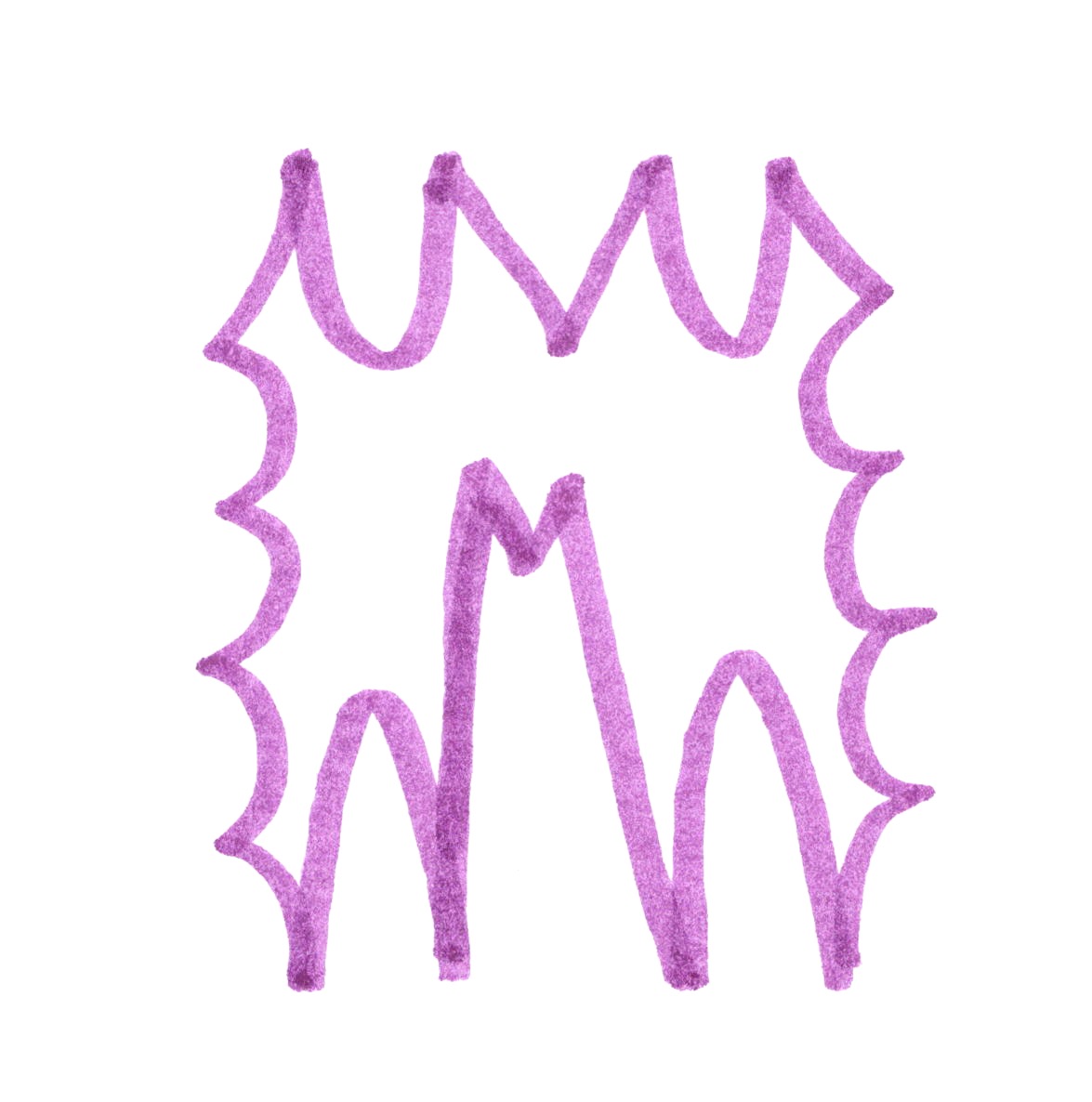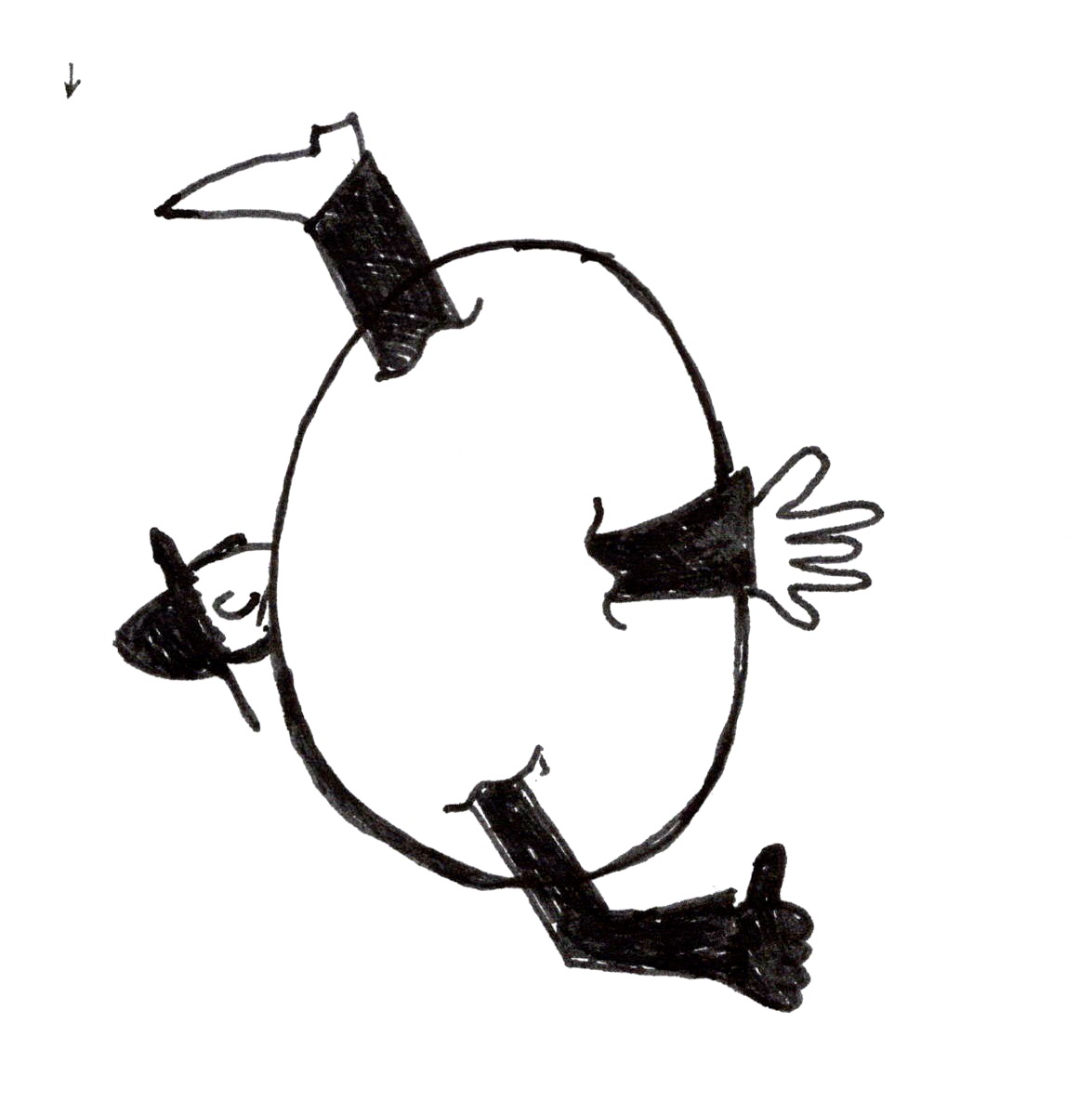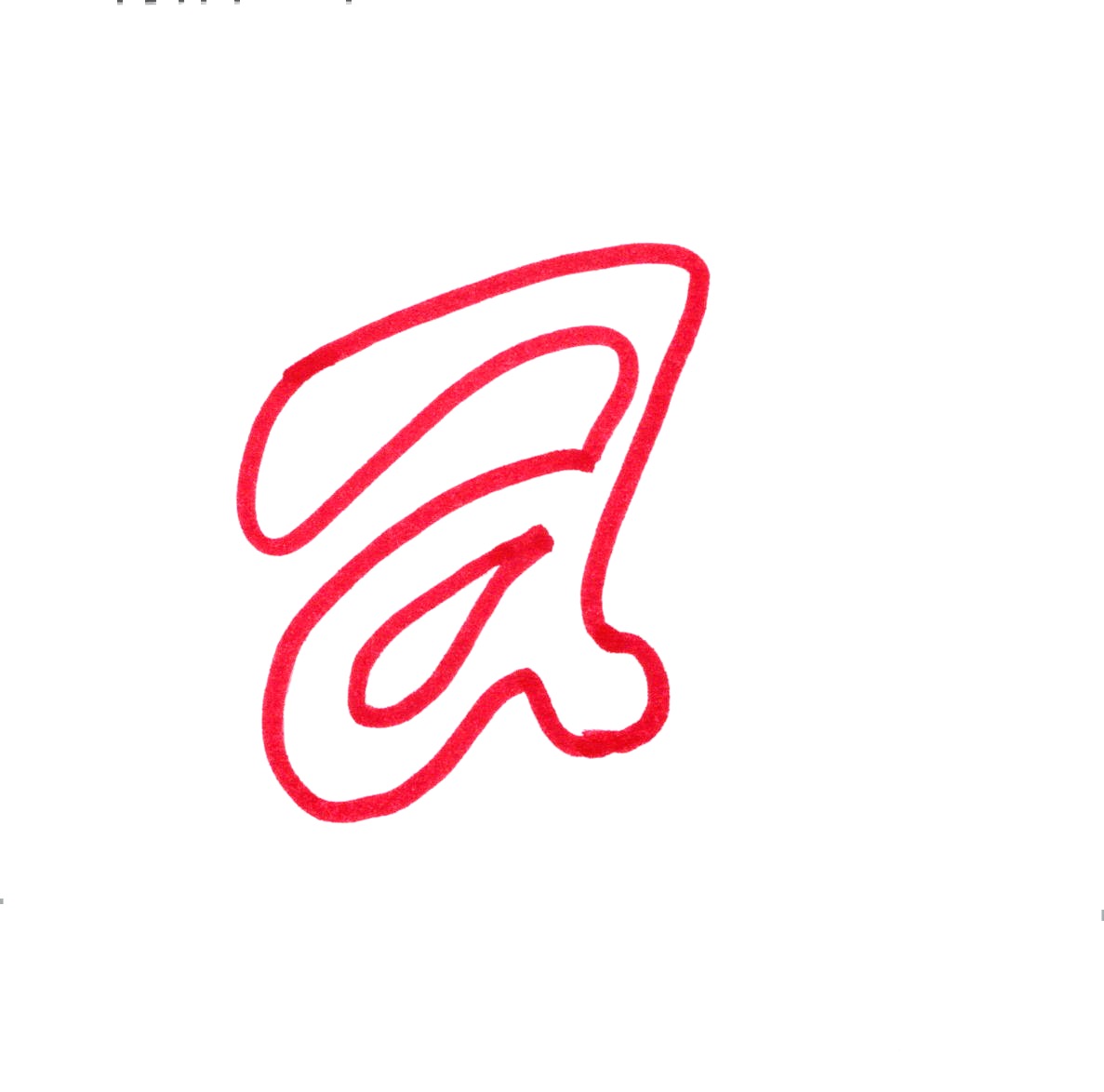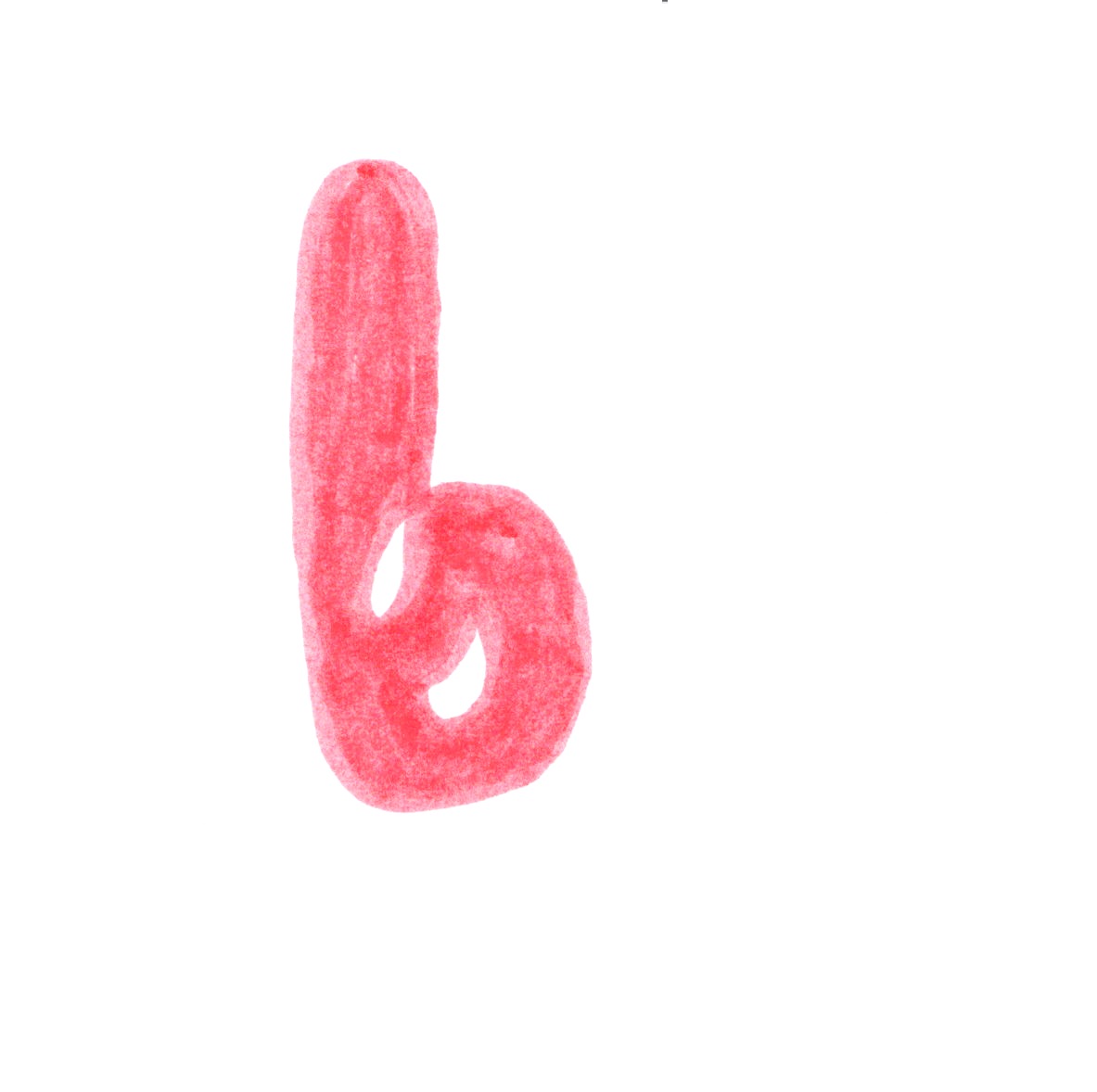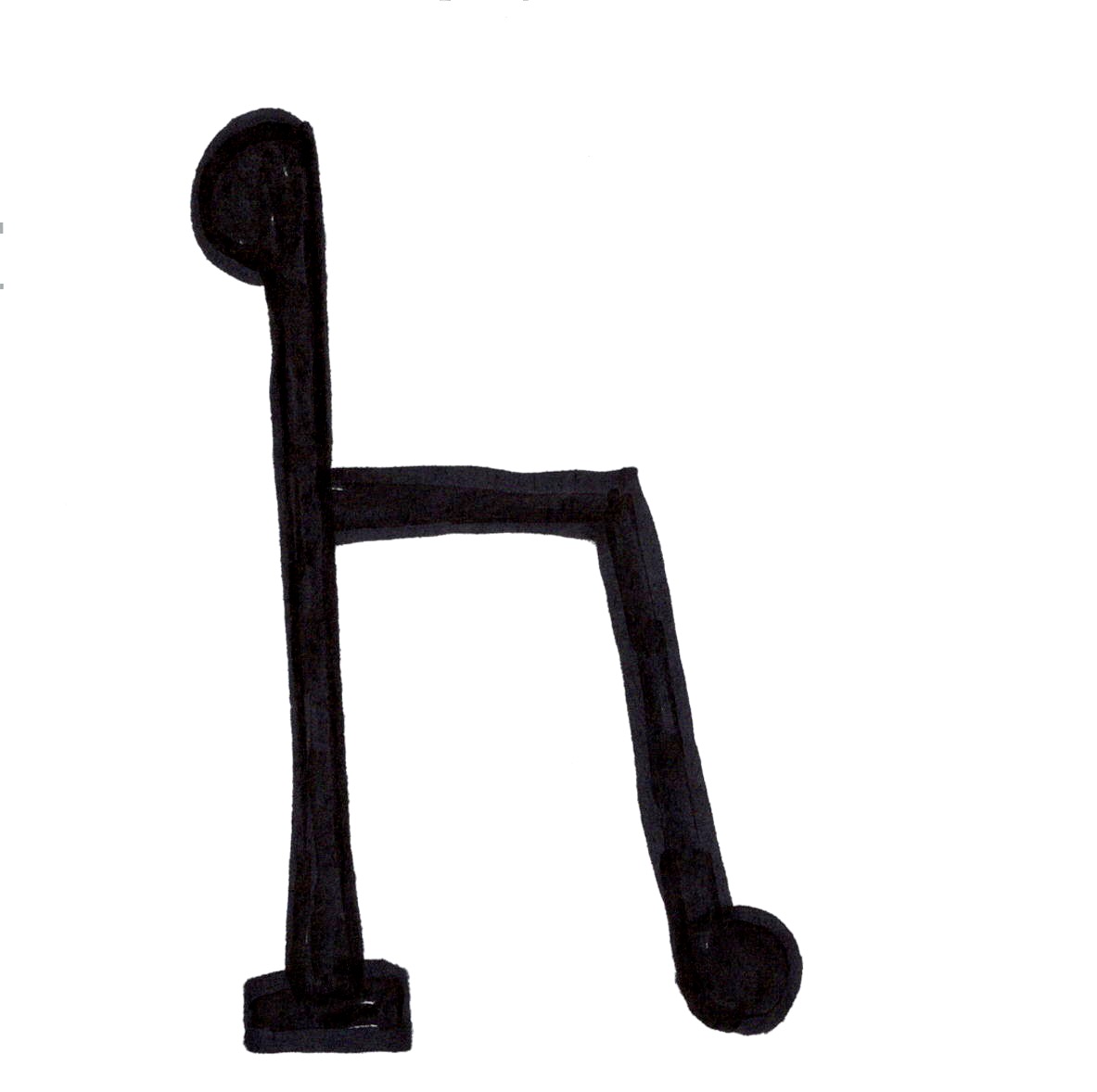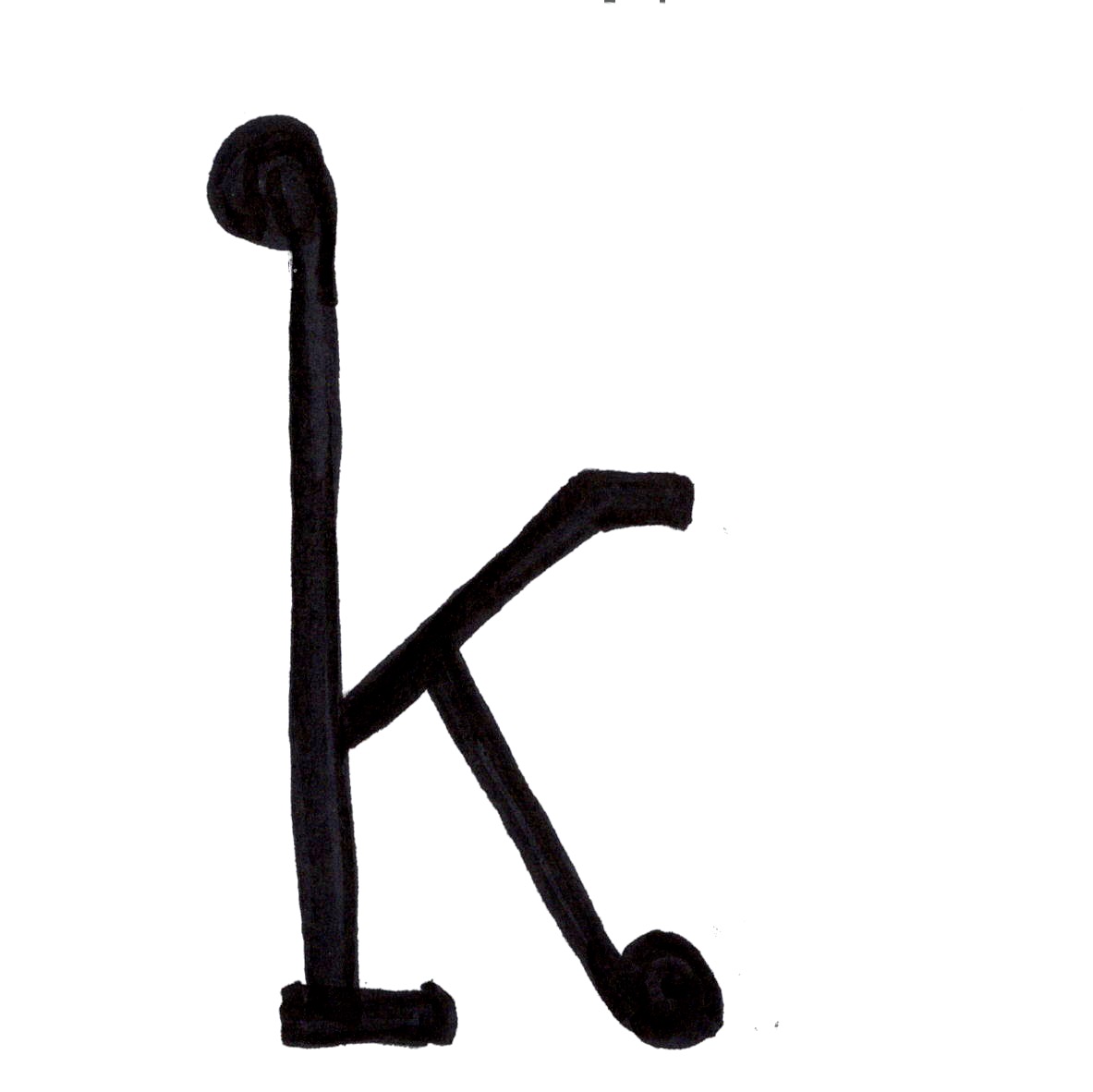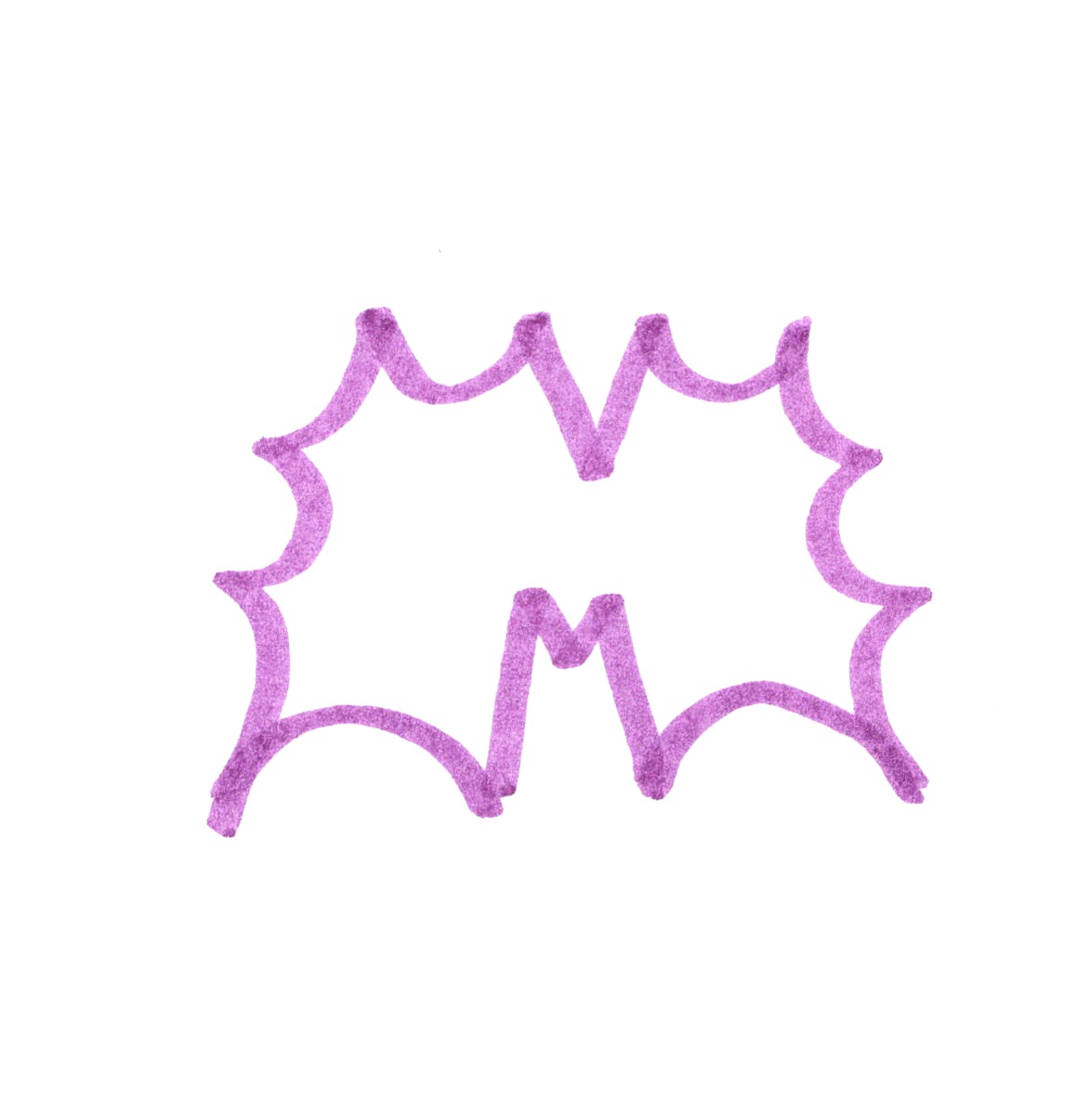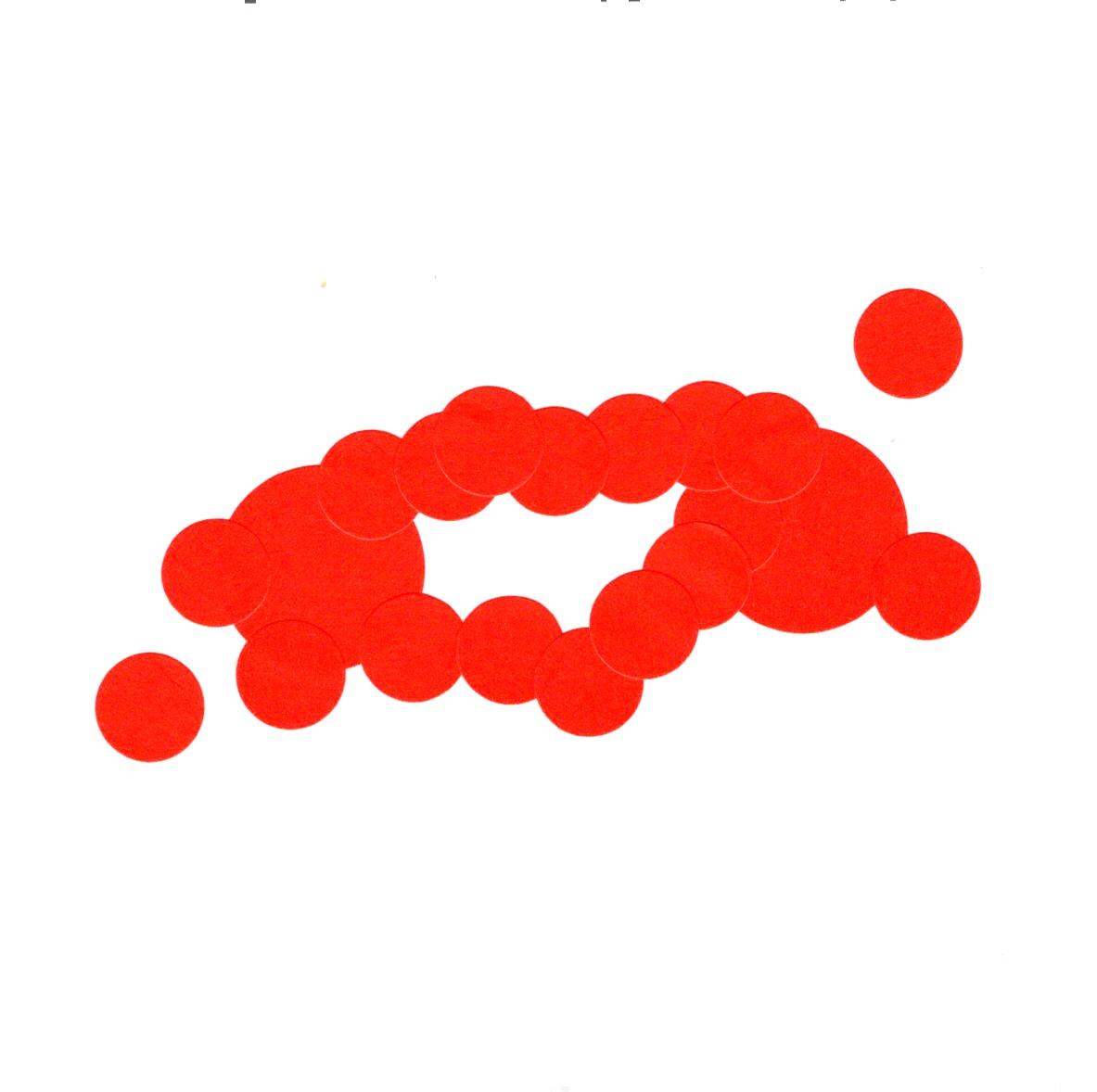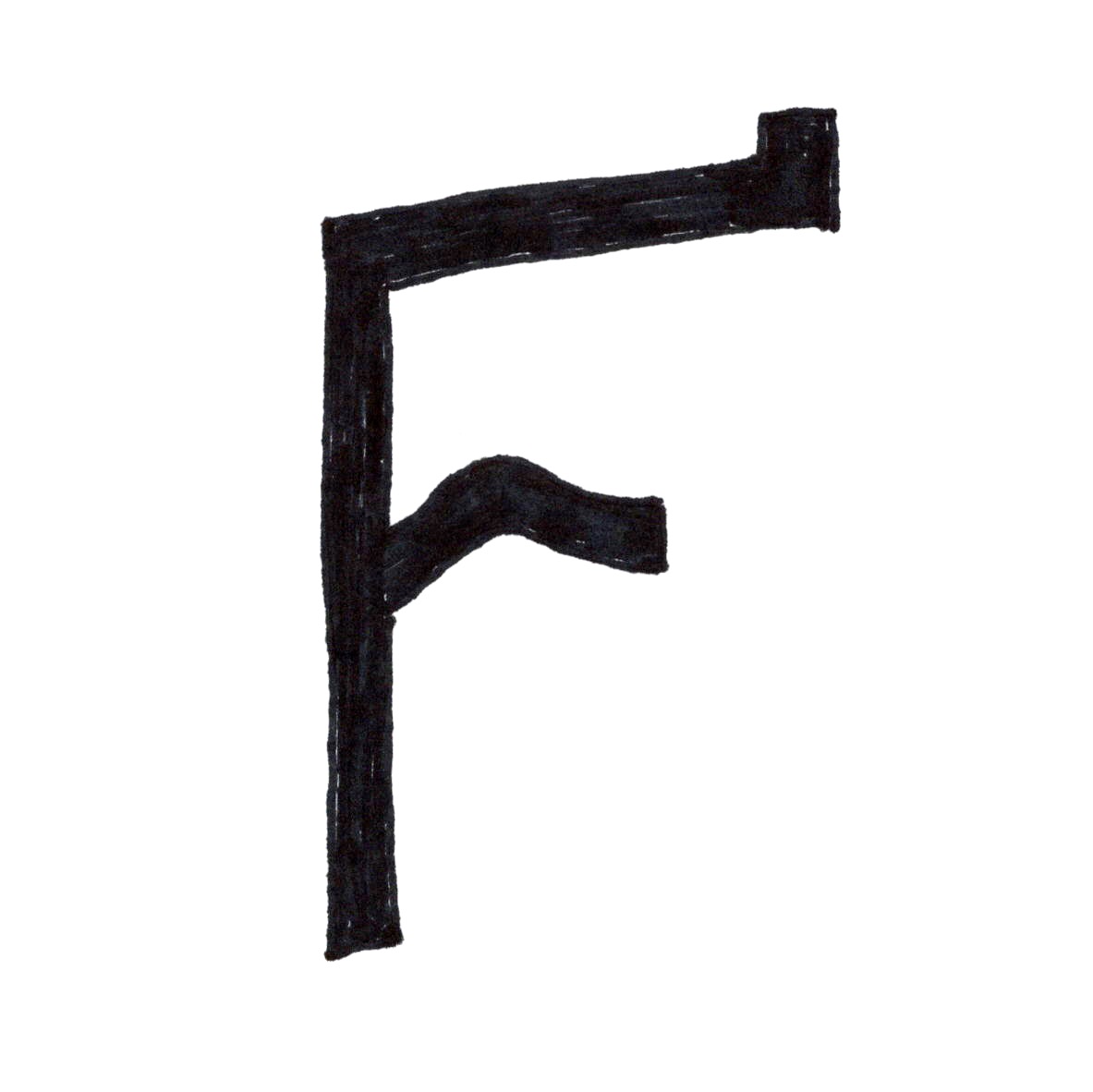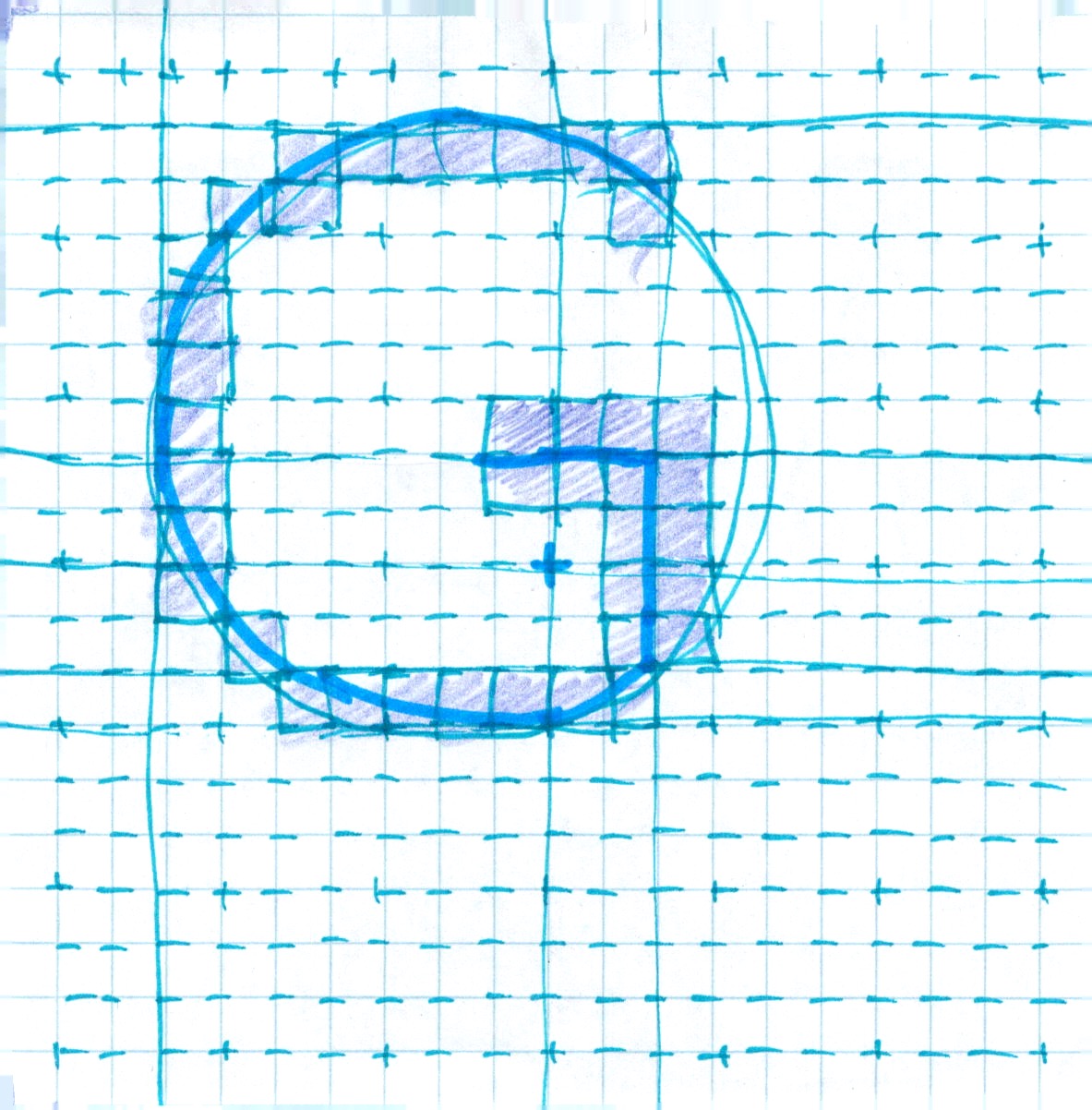
fairEnough
By Graphic Design Fair 2024 Participants
fairEnough is a collectively made typeface - all characters were chosen and drawn by participants during a workshop led by Xiaoyuan Gao. It was part of the programmes at Graphic Design Fair, hosted by Nieuwe Instituut and NAI Booksellers.
About fairEnough's designer